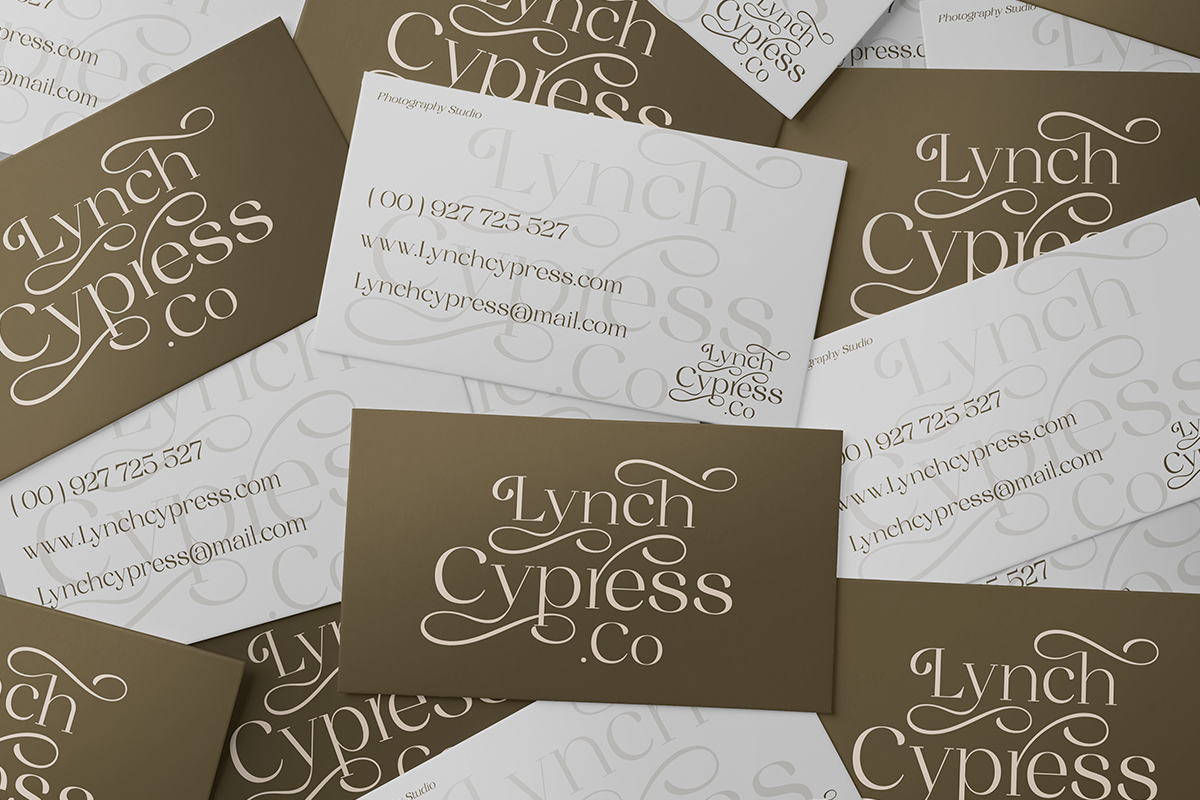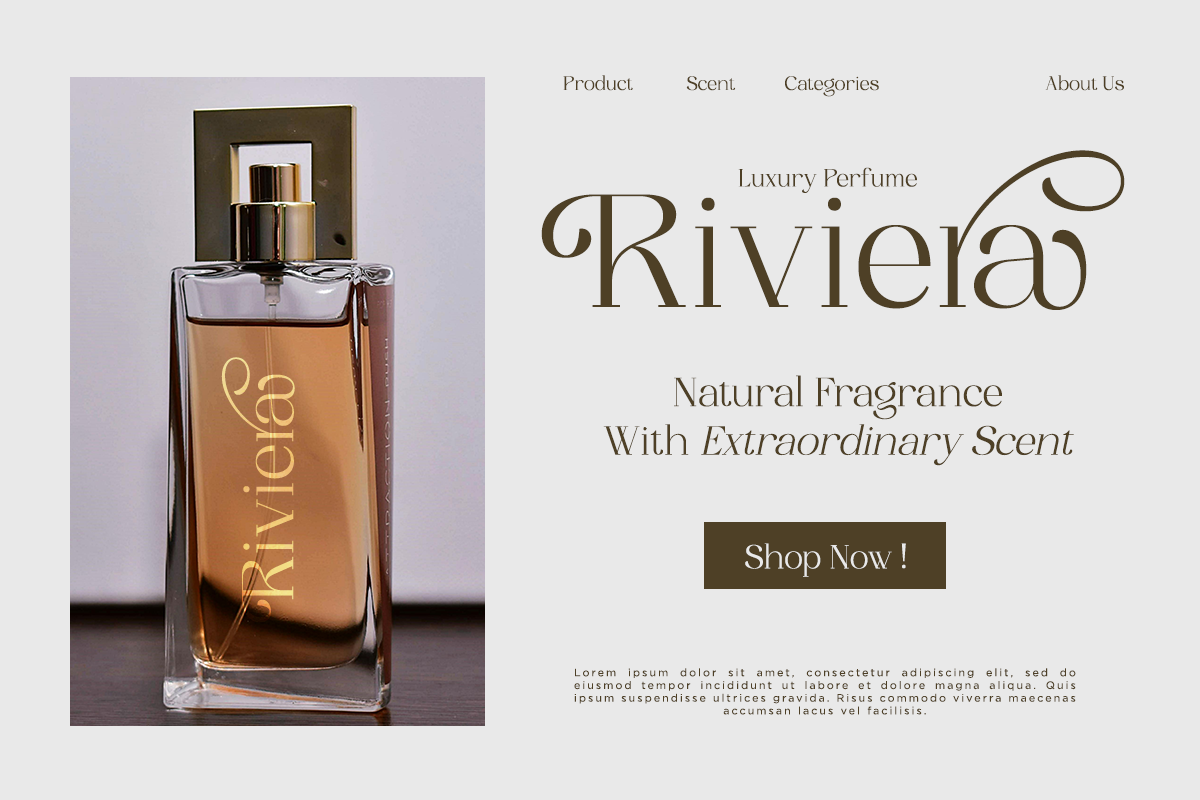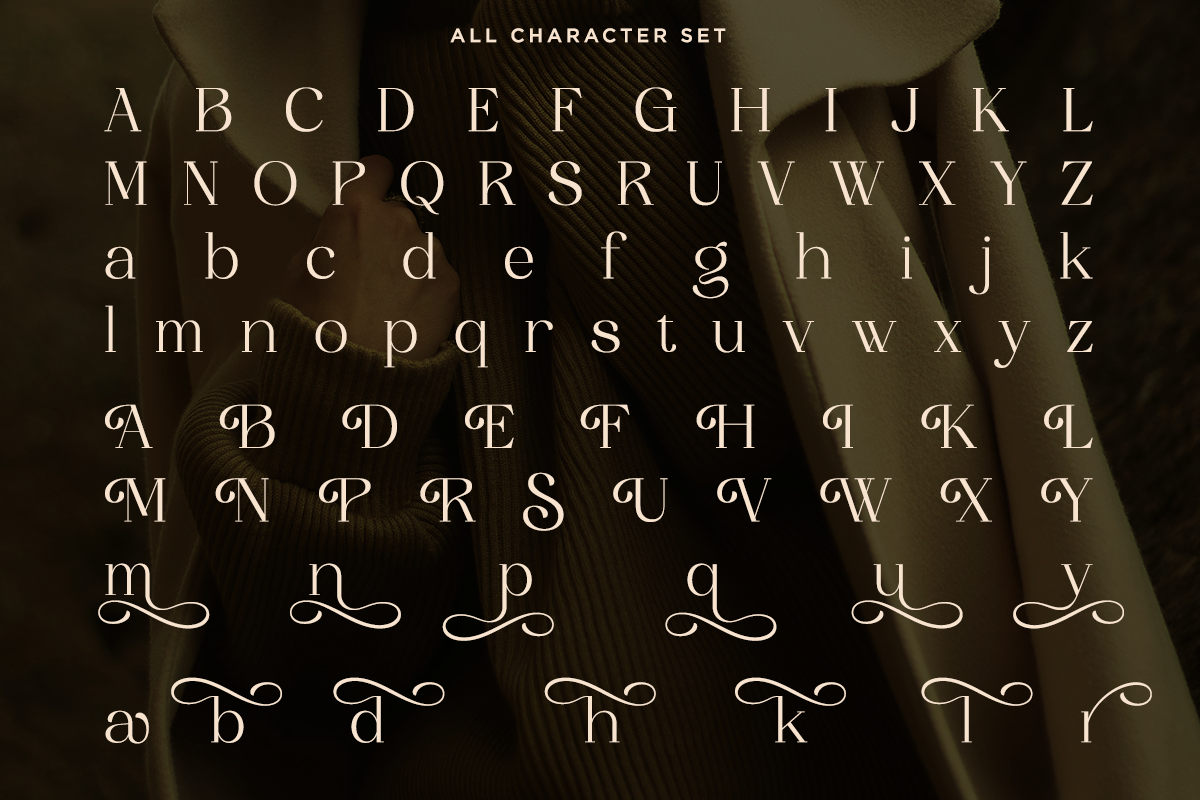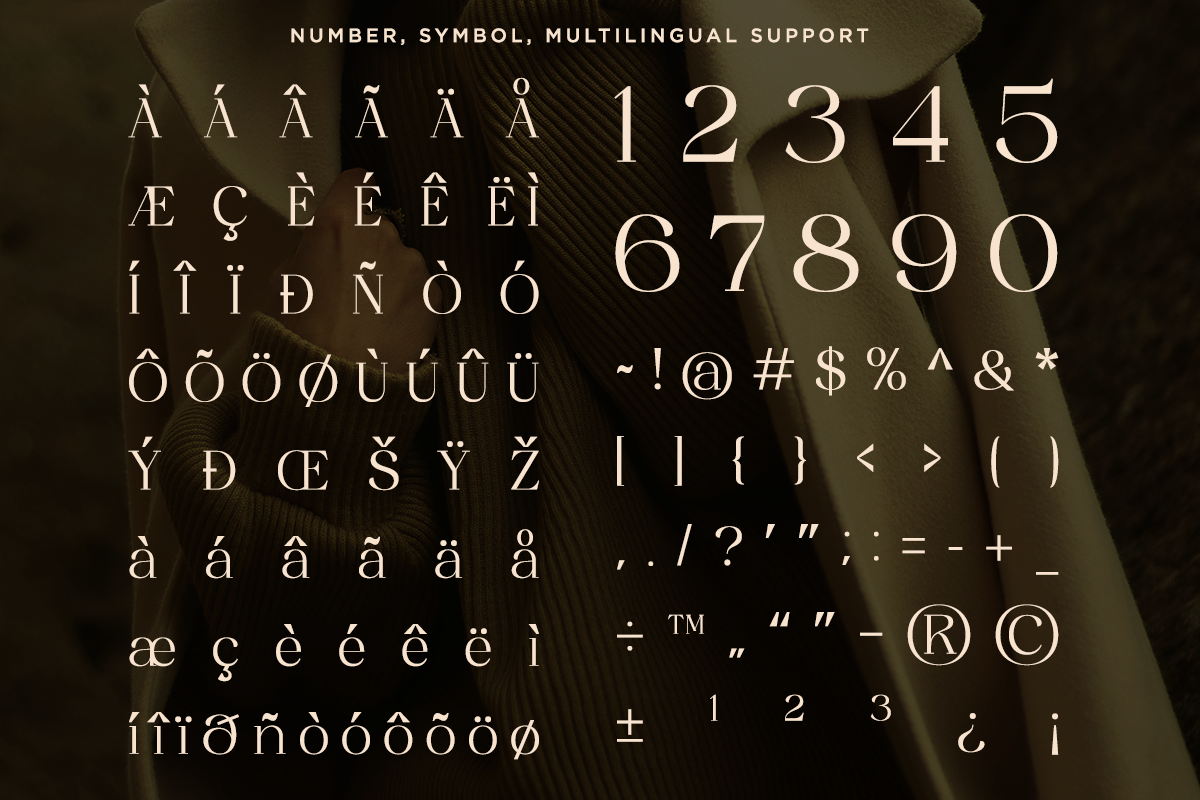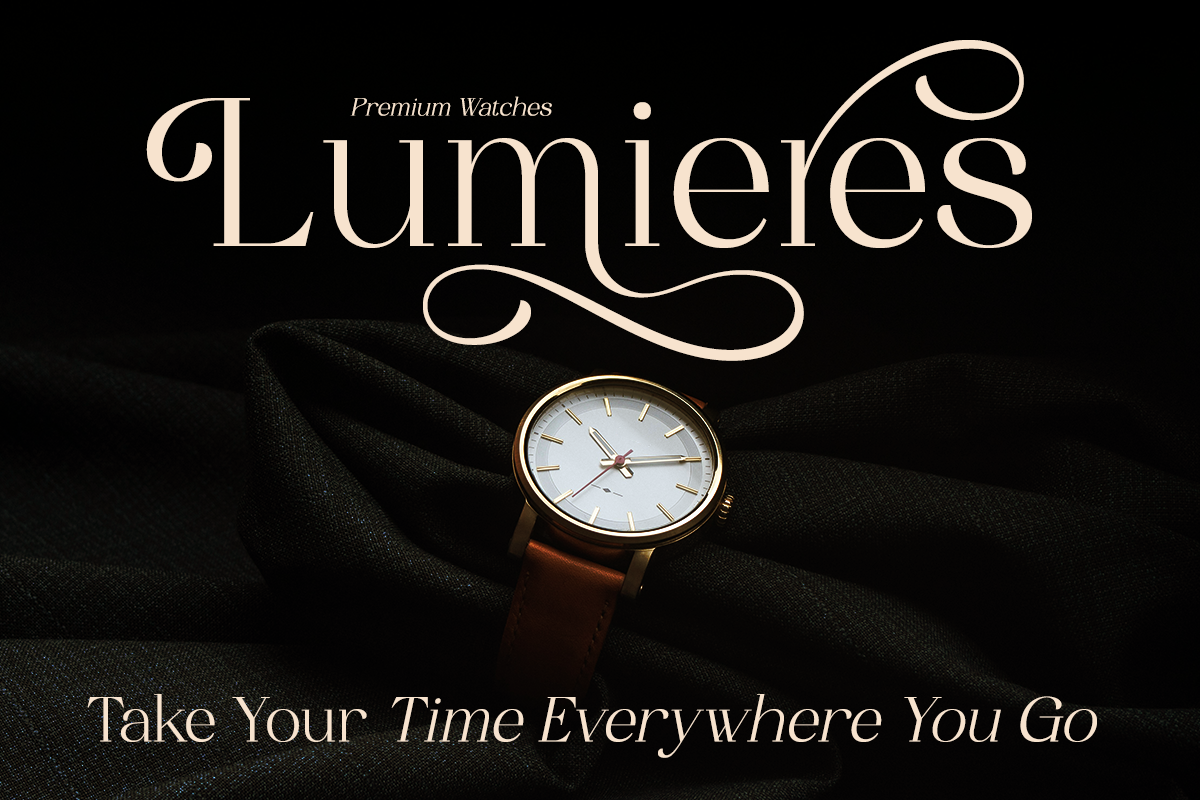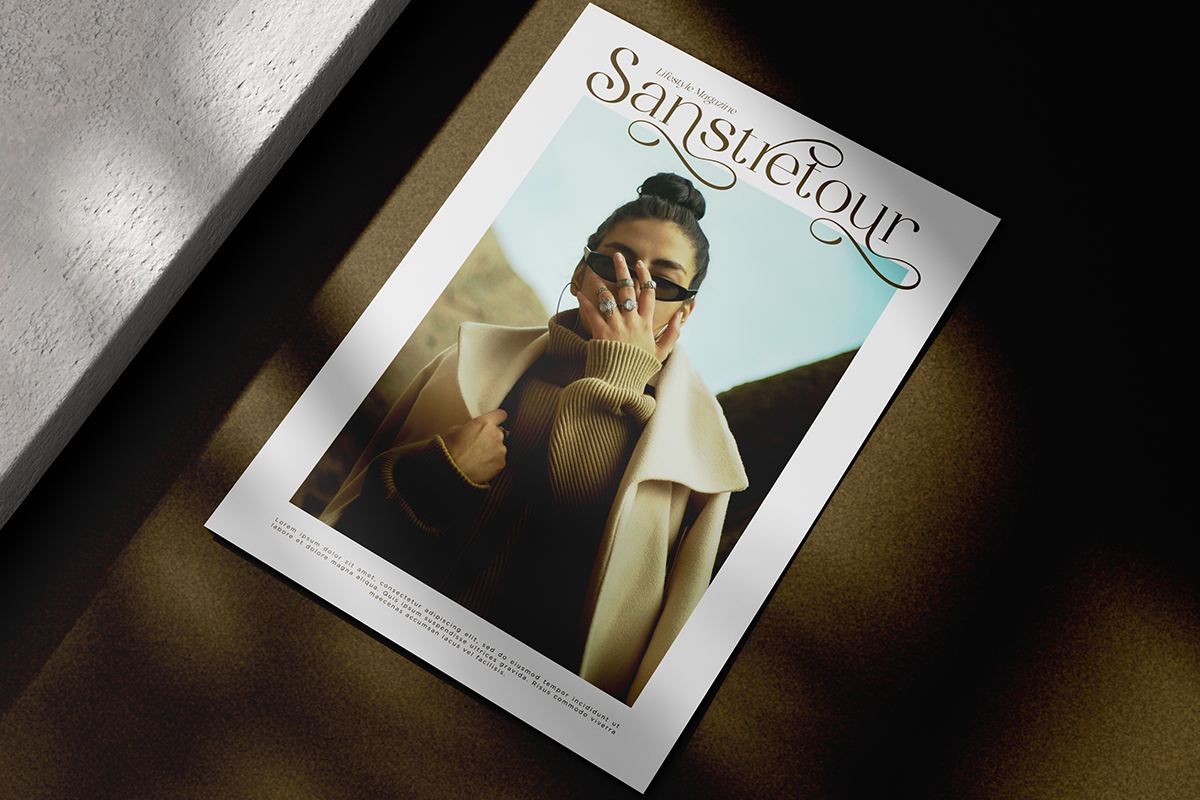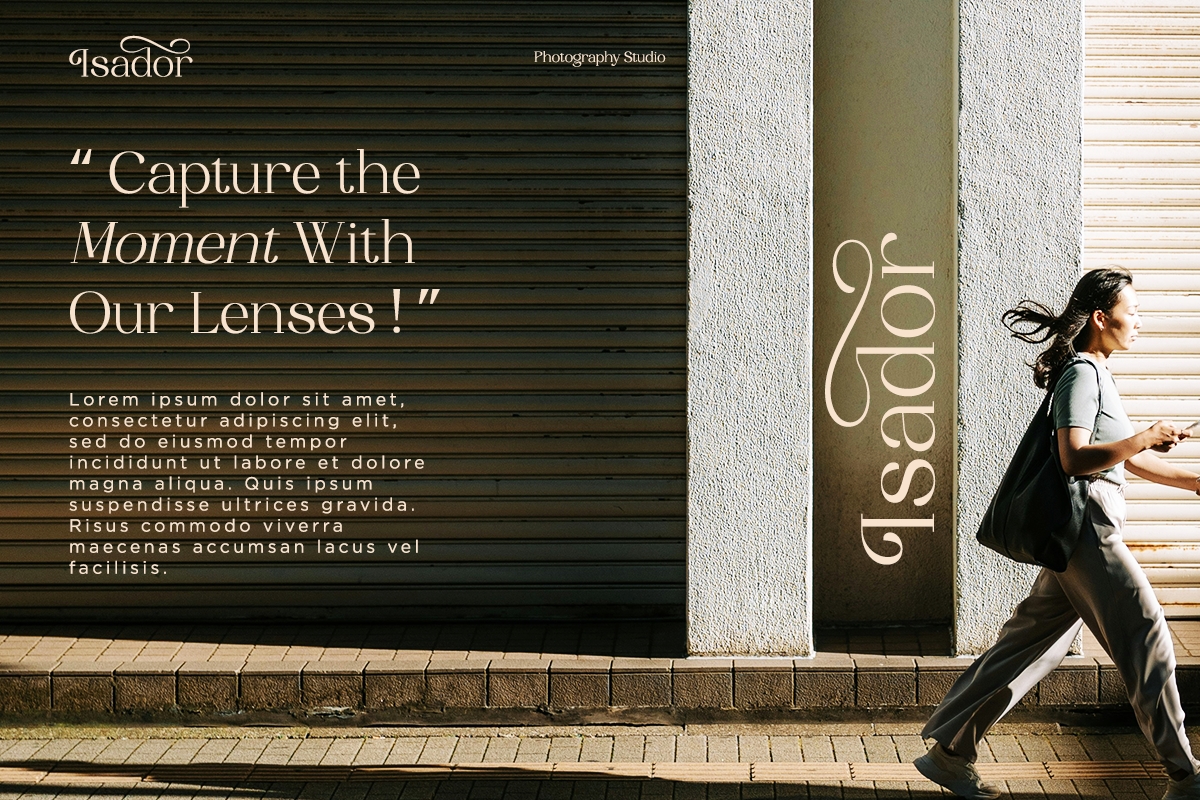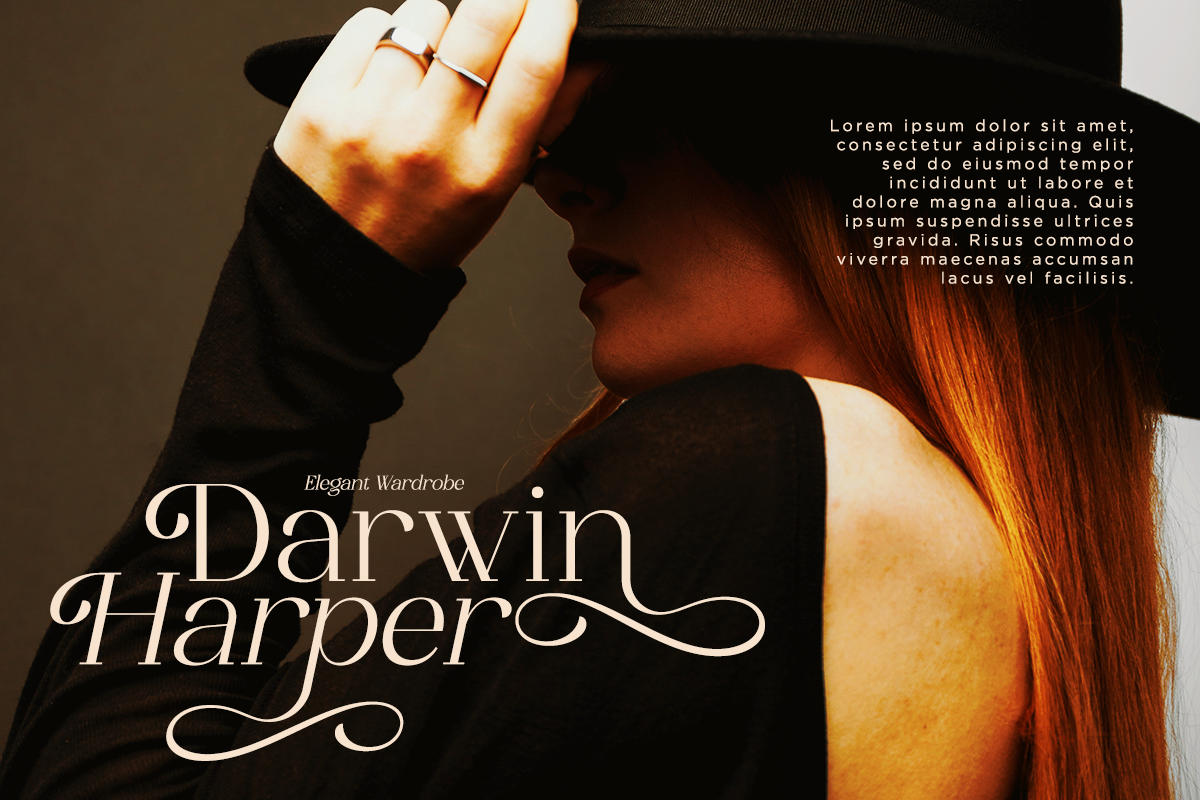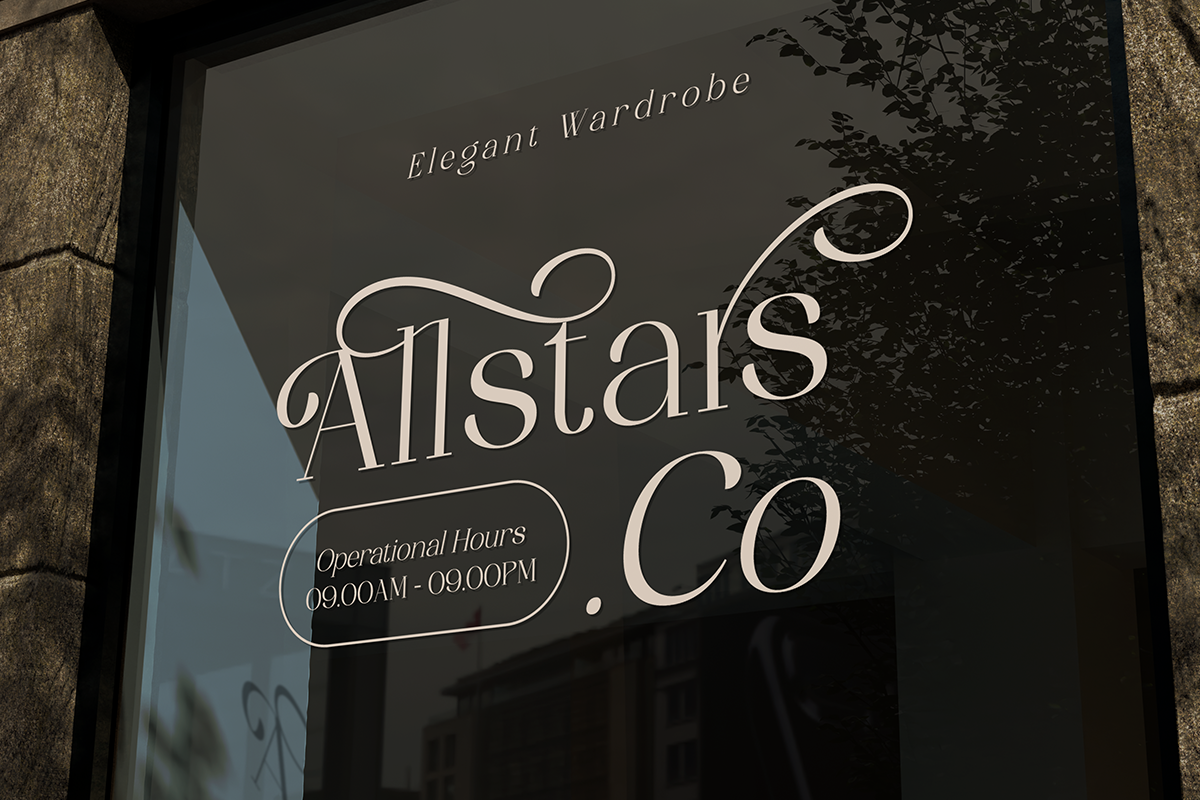
Soluga - Luxury Elegant Serif
Soluga is a luxury elegant serif typeface designed to bring sophistication, refinement, and timeless beauty to your designs. Crafted with graceful curves, high contrast strokes, and stylish swashes, Soluga blends classic serif elegance with a modern fashion sensibility. Each letterform is carefully balanced to create a strong visual presence while remaining smooth, feminine, and highly readable. Perfect For branding, logo design, luxury fashion, beauty brands, magazine headlines, editorial layouts, wedding invitations, boutique packaging, cosmetic labels, social media graphics, high-end advertising, product branding, posters, website headers, personal branding
- Uppercase Alternate
- Lowercase Alternate
- Symbol, & Number